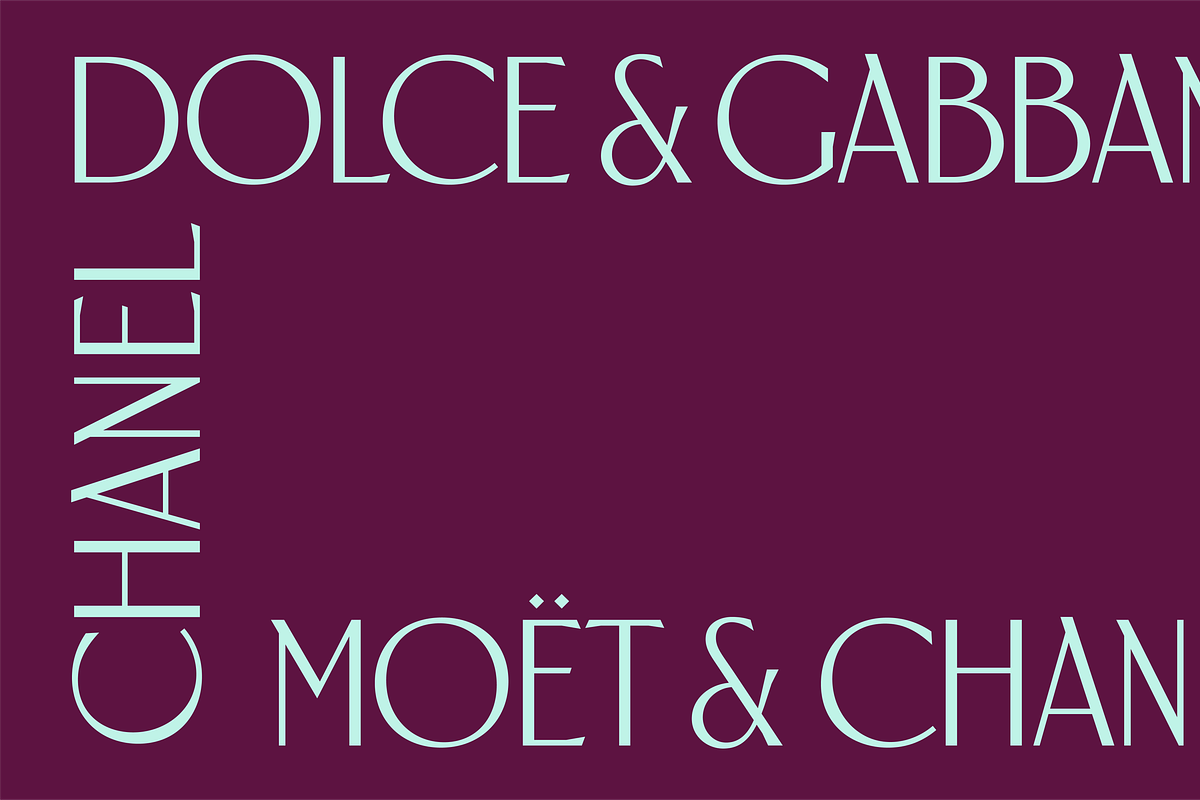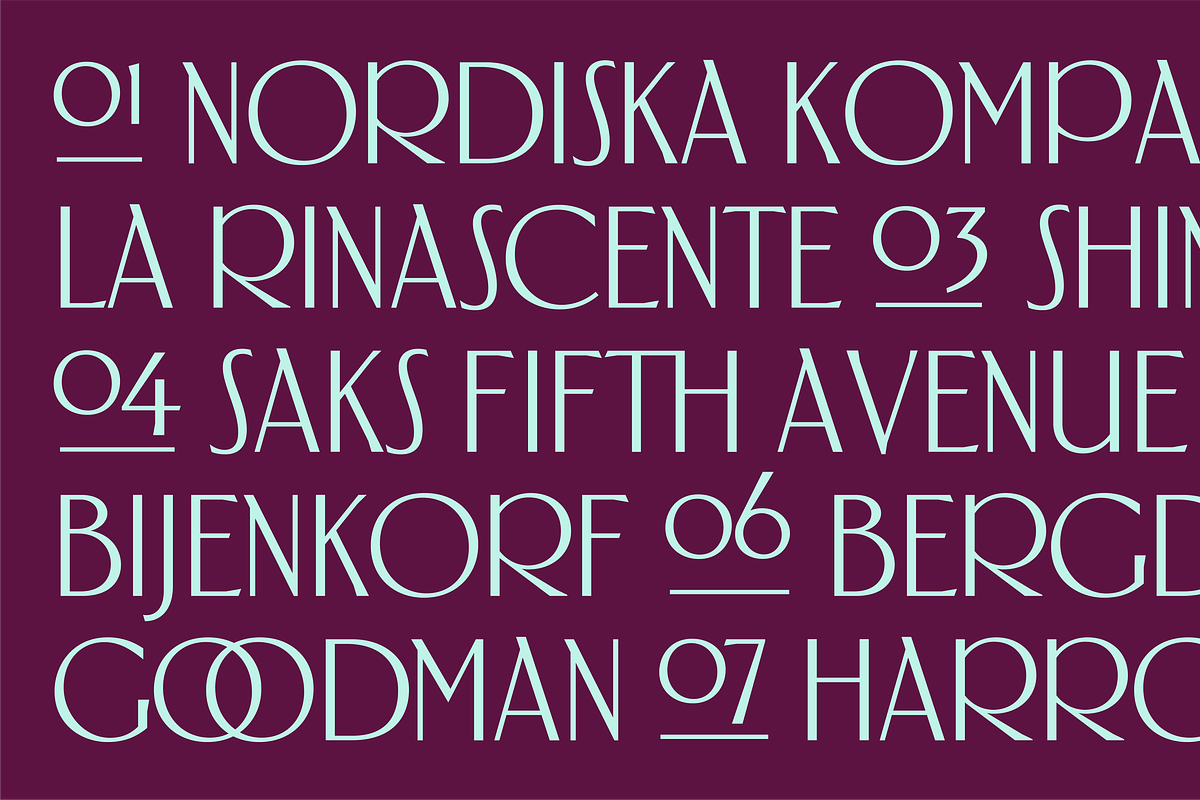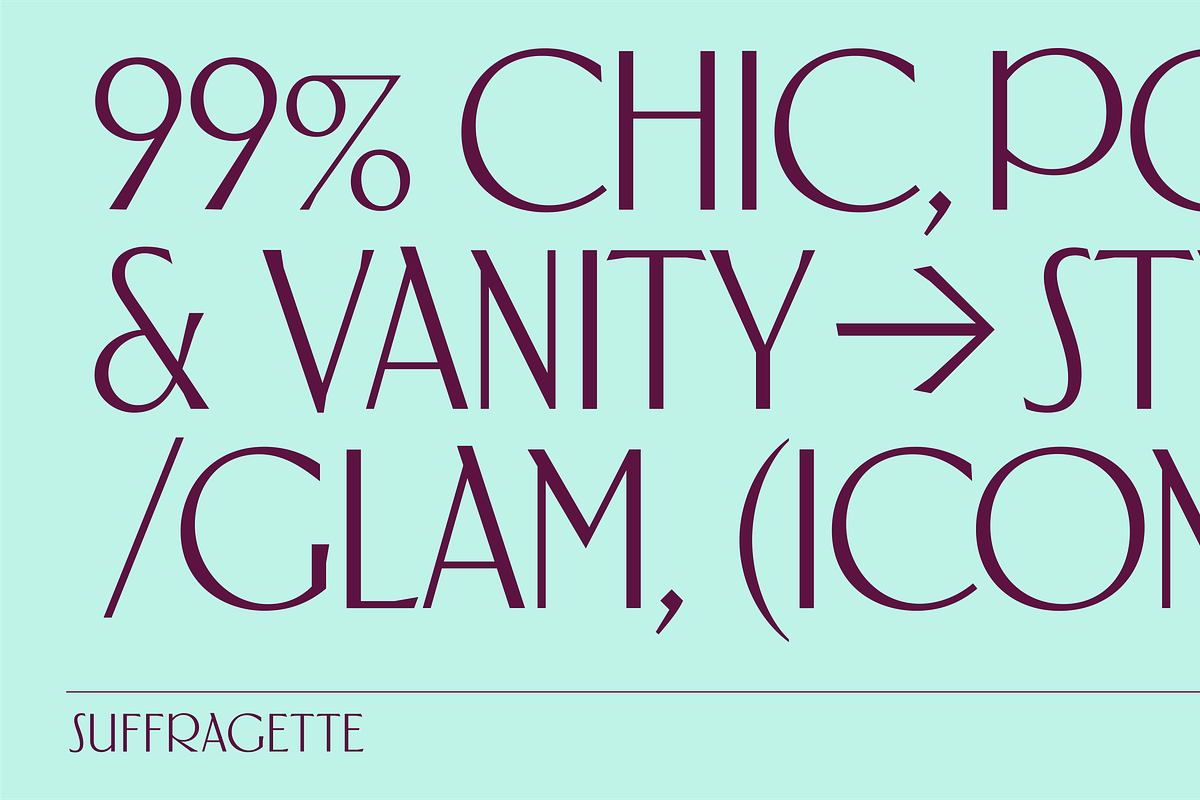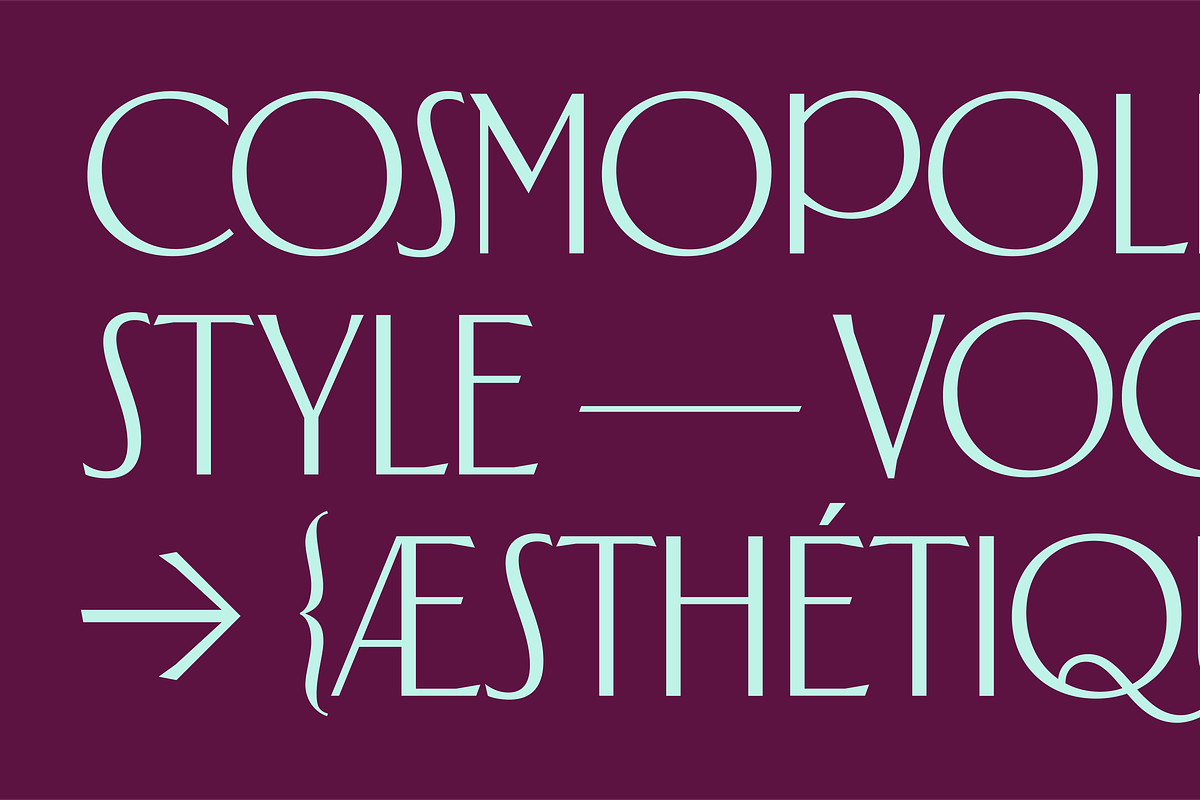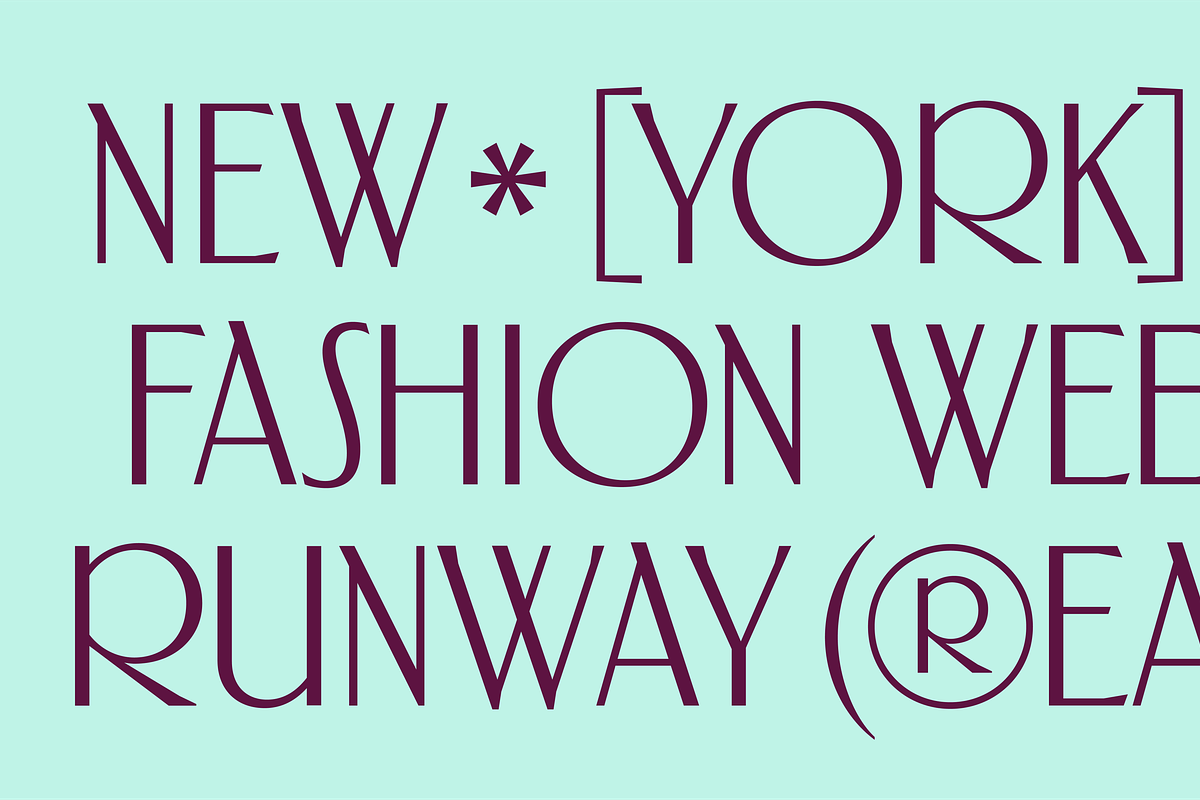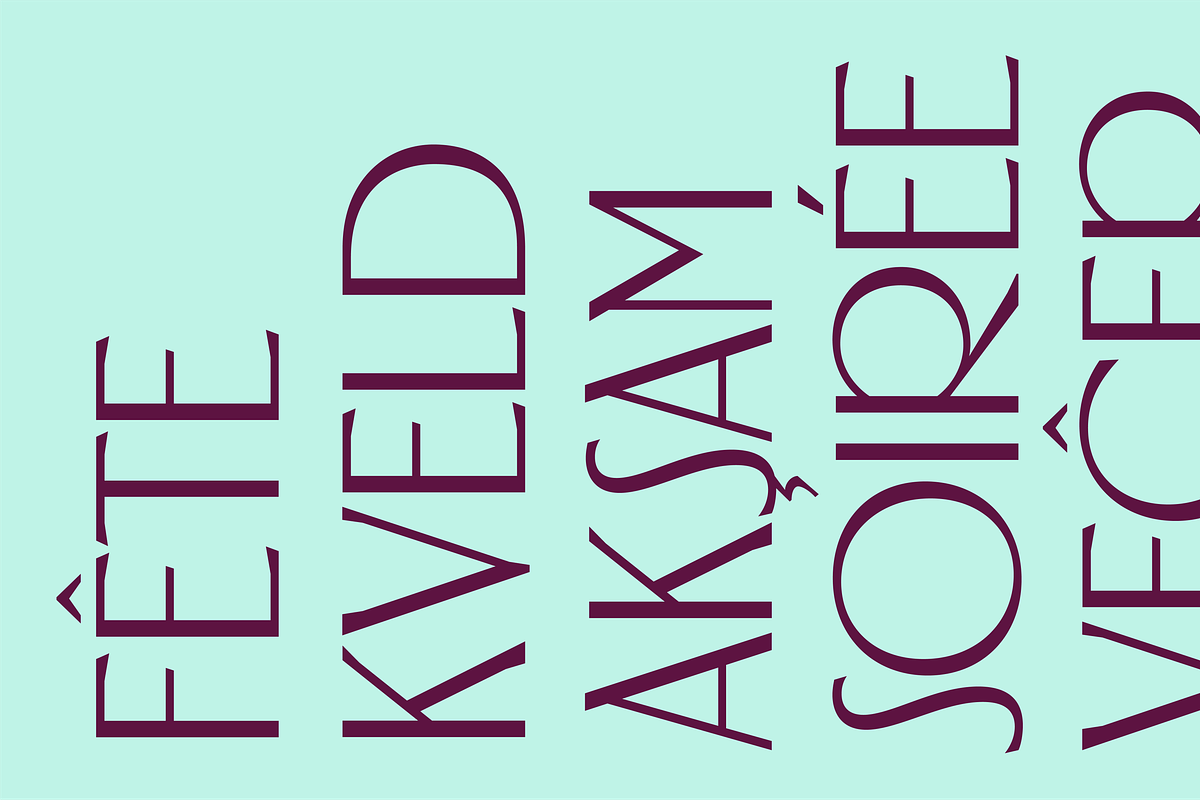
Suffragette
Suffragette is an all-caps display serif font inspired by Beaux-Arts architecture. It features medium contrast and slightly pronounced serifs, creating a unique blend of elegance and playfulness. This typeface is well-suited for luxury branding applications such as packaging and high-end couture.